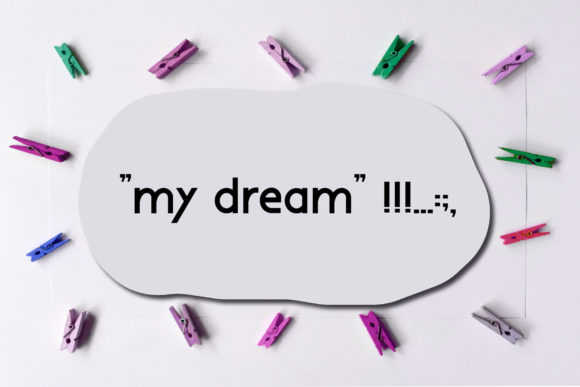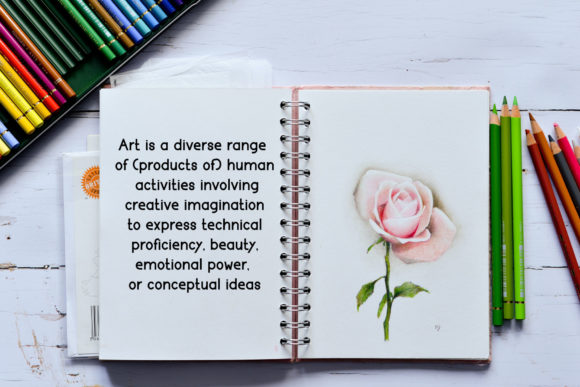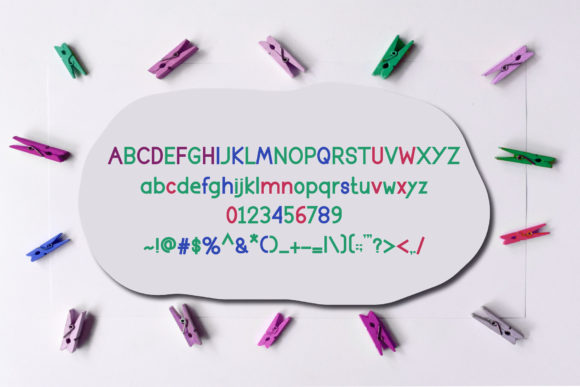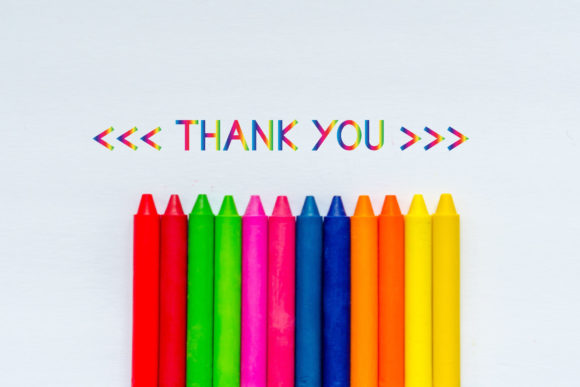
The Ultimate Guide to Alphabets Font: A Designer’s New Best Friend
I’ll never forget the time I was working on a project for a client who needed a clean and simple font to represent their brand. I had spent hours scouring the internet for the perfect one, but nothing seemed quite right. That was until I stumbled upon Alphabets Font. It was love at first sight! ✨ This authentic sans serif font has become my go-to for a wide variety of designs, and I’m excited to share its awesomeness with you.
So, what makes Alphabets Font so special? Let’s dive into the good stuff and a few quirks I’ve discovered.
- ✅ Clean and Simple Design: Alphabets Font boasts a neat and simple style that makes it perfect for a wide range of designs.
- ✨ Versatility: Whether you’re working on a logo, brochure, or social media graphics, this font adapts seamlessly.
- 🔍 Excellent Legibility: Even at small sizes, Alphabets Font remains clear and easy to read.
While Alphabets Font is amazing, there are a few things to keep in mind:
- ⚠️ Limited Embellishments: If you’re looking for a font with lots of flair, Alphabets might not be the best fit. It’s a straightforward, sans serif font.
- 🤔 Not Ideal for Body Text: While it’s legible, Alphabets Font is best used for headings and titles. For longer blocks of text, you might want to choose a serif font for better readability.
The Designer Inspiration Behind Alphabets Font
The story behind Alphabets Font is one of simplicity and elegance. Designed with the modern designer in mind, this font aims to bring a clean and professional look to any project. While the exact designer may not be well-known, the inspiration clearly comes from a passion for minimalism and readability.
| Font Name | Alphabets Font |
| Author | Designvector10 |
Q: Does Alphabets Font support OpenType features?
A: Yes, Alphabets Font comes with a range of OpenType features that you can use to customize your text.
Q: Is Alphabets Font suitable for body text?
A: While it’s legible, Alphabets Font is best used for headings and titles. For longer blocks of text, consider a serif font.